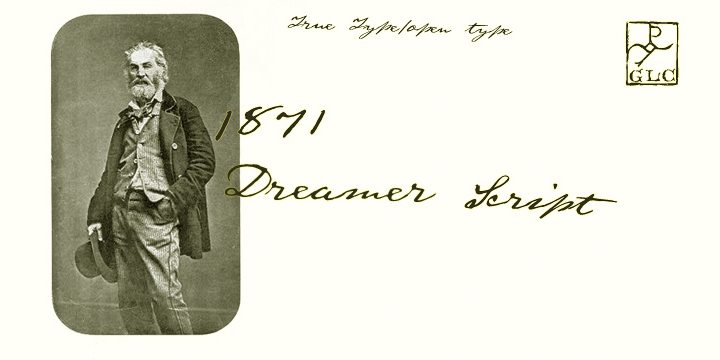
Step into a world of Victorian elegance with 1871 Dreamer Script Font Free Download – an exquisite calligraphic typeface inspired by 19th-century penmanship. This ornate script features lavish swashes and delicate flourishes, perfect for projects demanding old-world charm with romantic sophistication.
Why 1871 Dreamer Script Captivates
1871 Dreamer Script Font Free Download delivers:
Authentic Victorian-era letterforms
100+ alternates and ligatures
Perfect balance of elegance and readability
Dramatic swashes for custom styling
1871 Dreamer Script Font Free Download Technical Features:
Complete uppercase and lowercase characters
Extensive swash and terminal variations
Timeless Applications:
Vintage wedding invitations
Luxury perfume branding
Historical novel covers
Antique-style labels
Romantic stationery
Calligraphy Tip: Use with generous ascender/descender space and pair with delicate filigree borders!